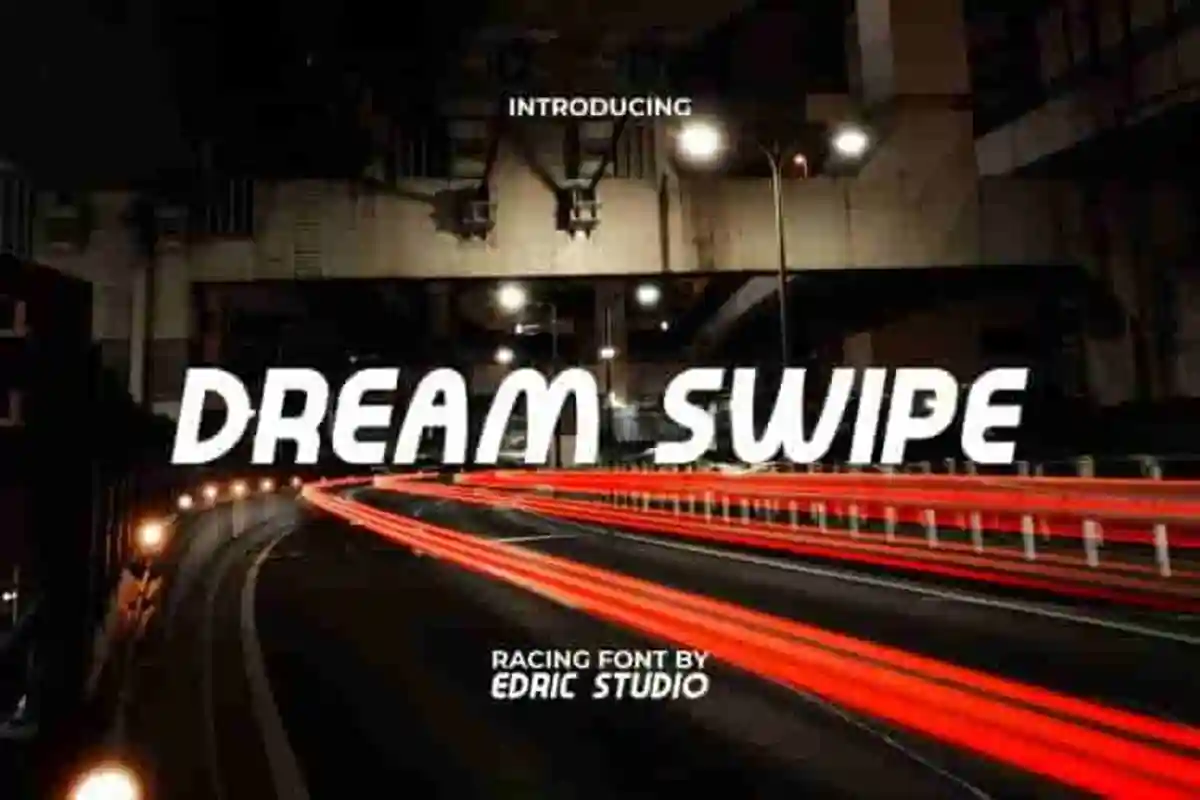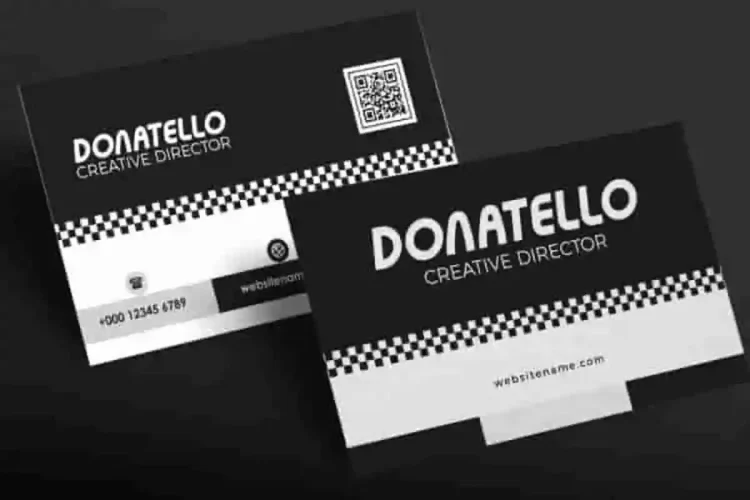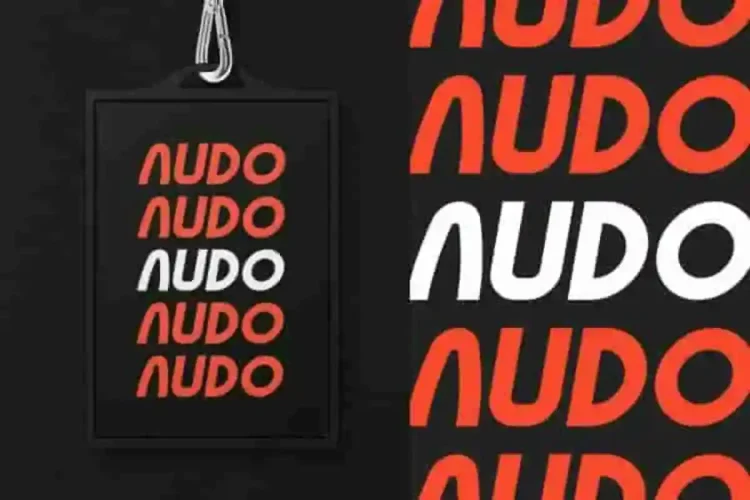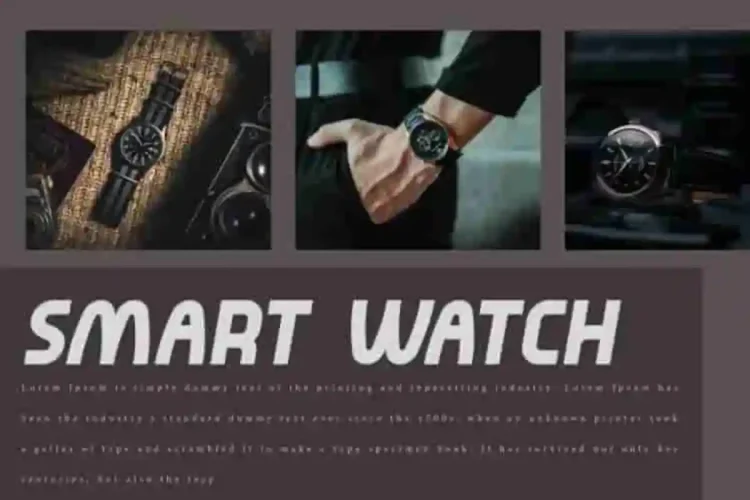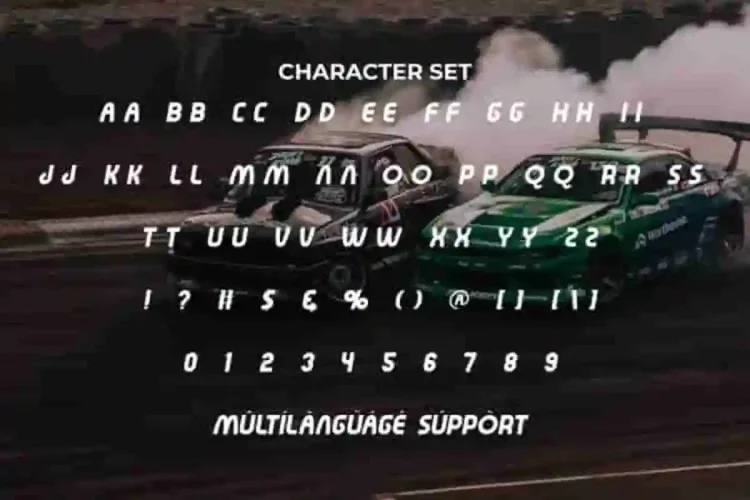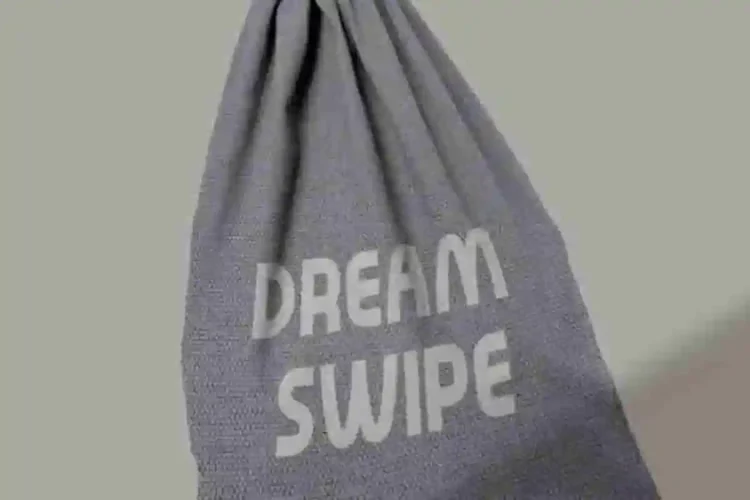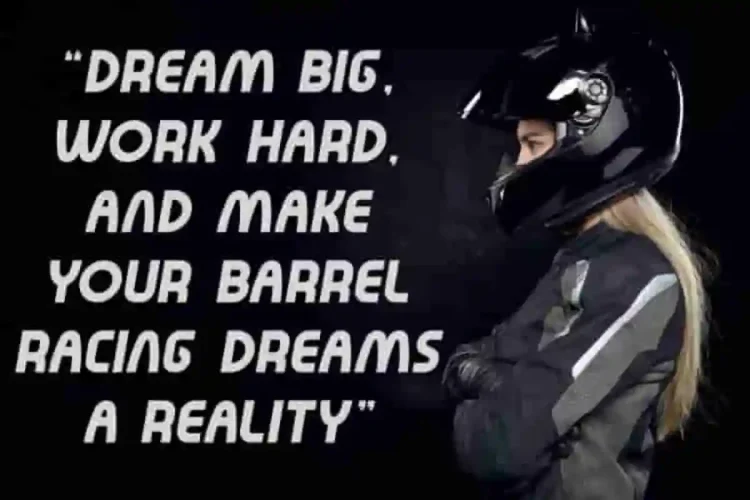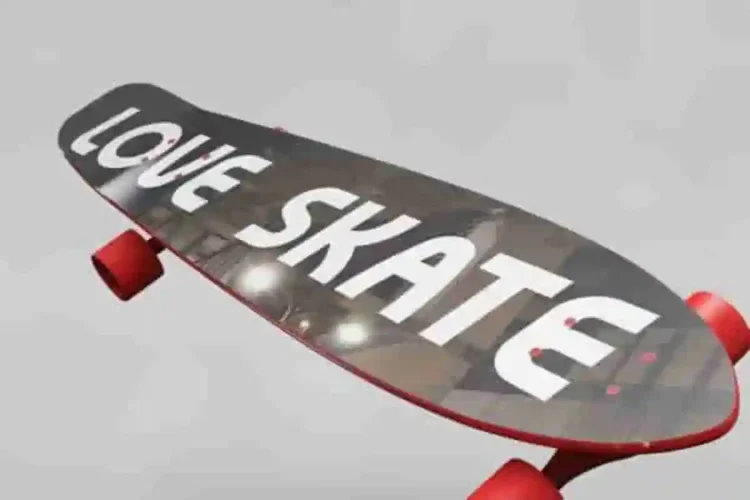
Dream Swipe
Dream Swipe Modern Font is a unique modern display font with a racing style. It will give a different touch to your design. This will be great for apps, billboard, blogs, brochure, business card, cover, flyer, header, ID card, logos, packaging design, poster, price label, quotes, screen print, signage, sticker, title, website, and more.
Dream Swipe Modern Display Font comes with a full set of ALL CAPS for Uppercase and Lowercase letters, Number, Punctuation and Symbol. Racing themed fonts are truly unique, never disappoints! With sharp edges and a sleek design, Dream Swipe is perfect for making a strong impression across all platforms.
Dream Swipe Font a playful typeface with unique decoration in each character. Combine different characters for a bespoke, handcrafted feel. It’s tested to work well in the Adobe Apps (Illustrator, Adobe InDesign, Adobe Photoshop) even work on Microsoft Word. is PUA encoded, and works seamlessly with Adobe Illustrator, Photoshop, InDesign, and even Microsoft Word.